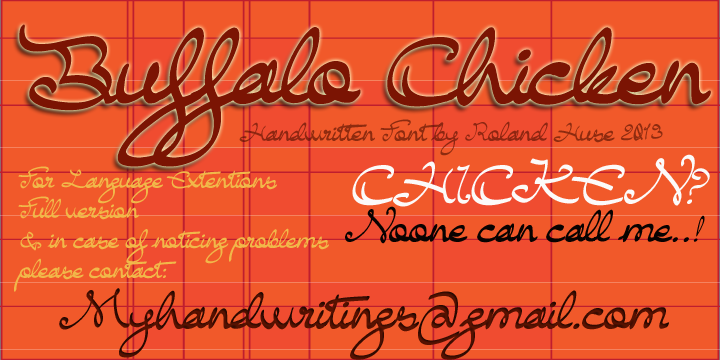
Preview and download Buffalo Chicken Font. Created by Runes & Fonts in Script Calligraphy styles with Demo license.
BUFFALO CHICKEN is my first attempt to create a cursive , continuous looking Font. It's hard to read though, so it's best at big size especially for logos. This is a kind of a demo version so far. Typing with caps lock is not recommended cause it may cause bad result as the Caps has not been kerned to each other,however they look better followed the small letters. Free for personal use, commercial use requires donation. Please contact me in case of any questions, suggestions or feedback. I hope you like this font! Greetings, Roland contact myhandwritings@gmail.com homepage http://www.rolandhuse.com |